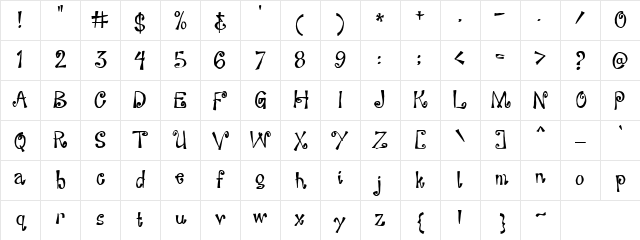
LD PeekABoo Regular Free Font
LD PeekABoo Regular
Design Context for LD PeekABoo
LD PeekABoo is a composed and adaptable typeface that performs quietly and consistently across a wide range of design contexts.